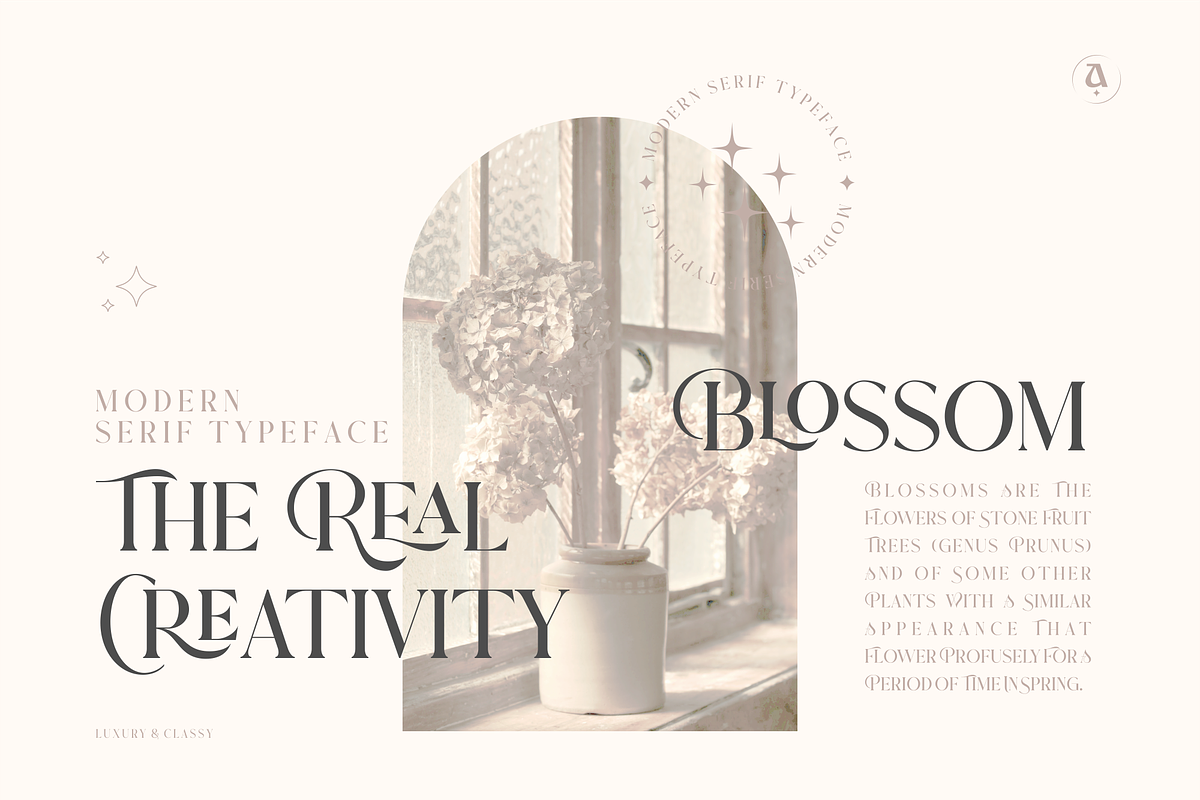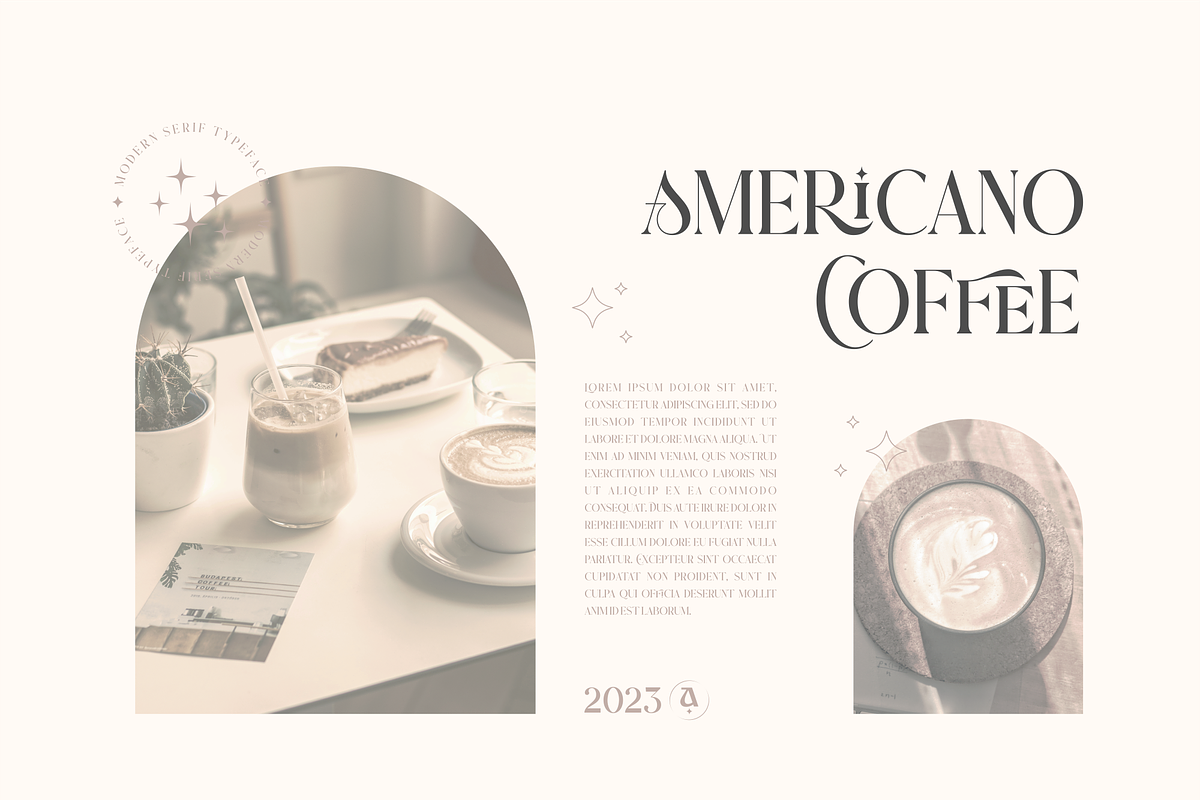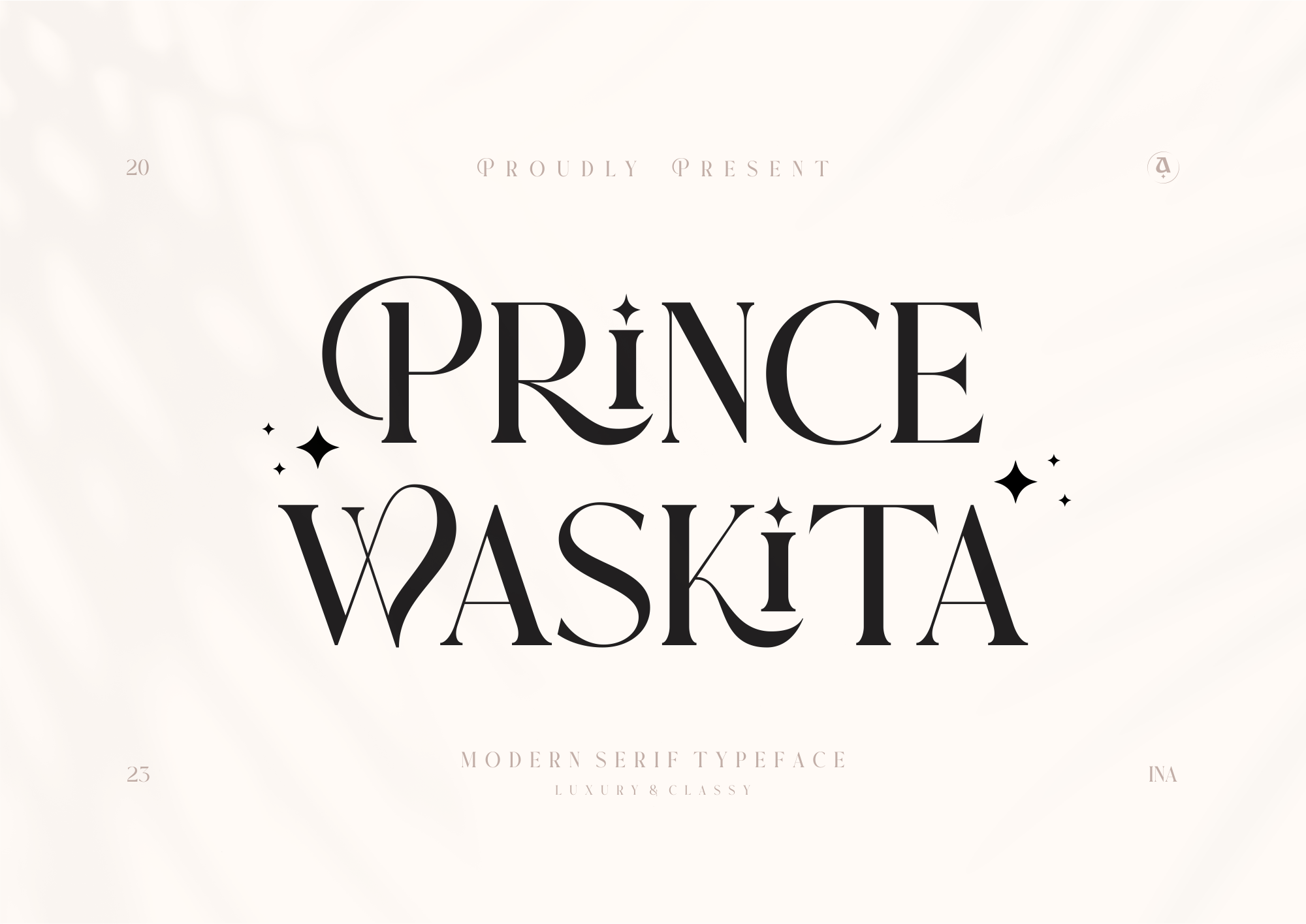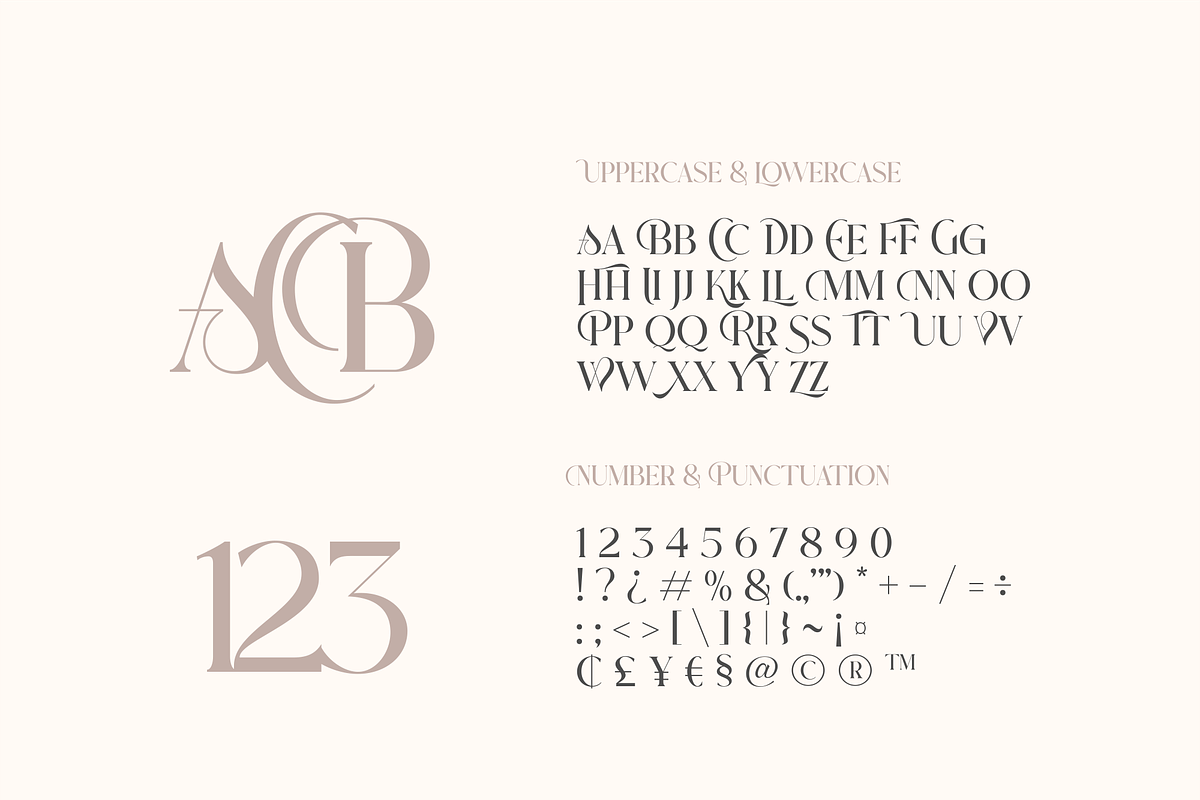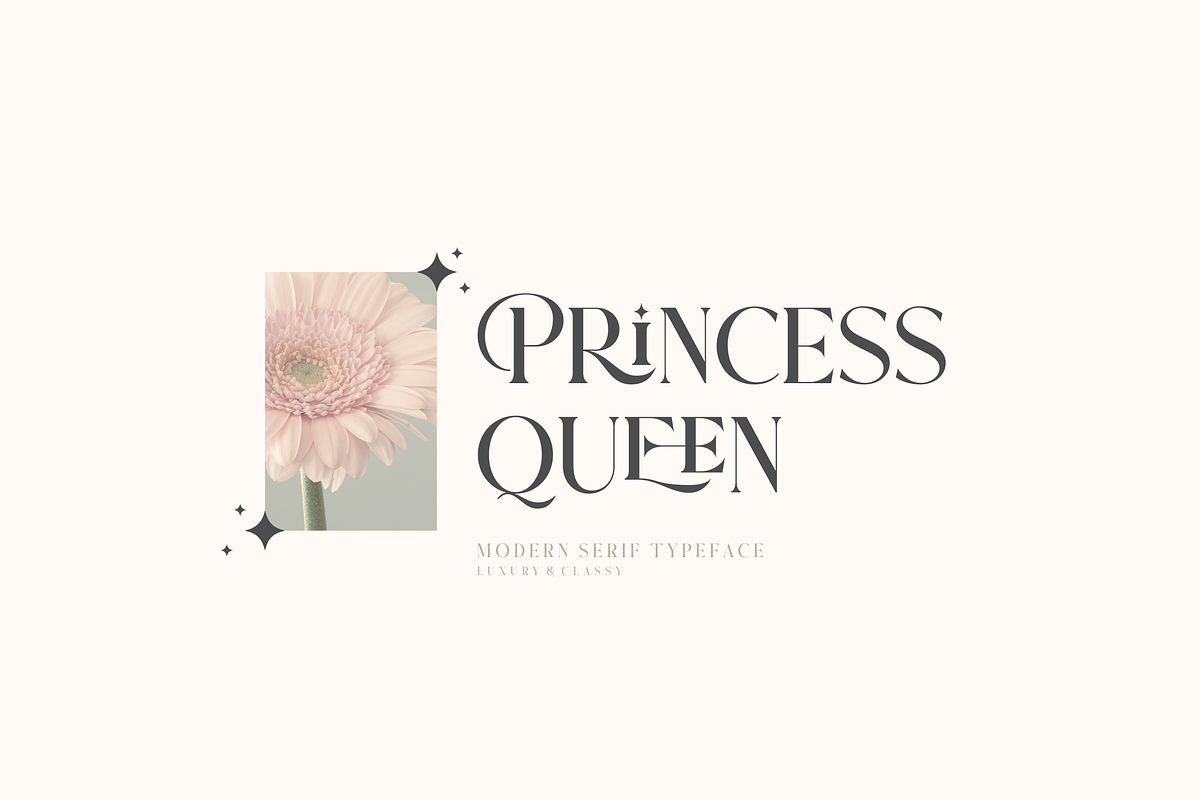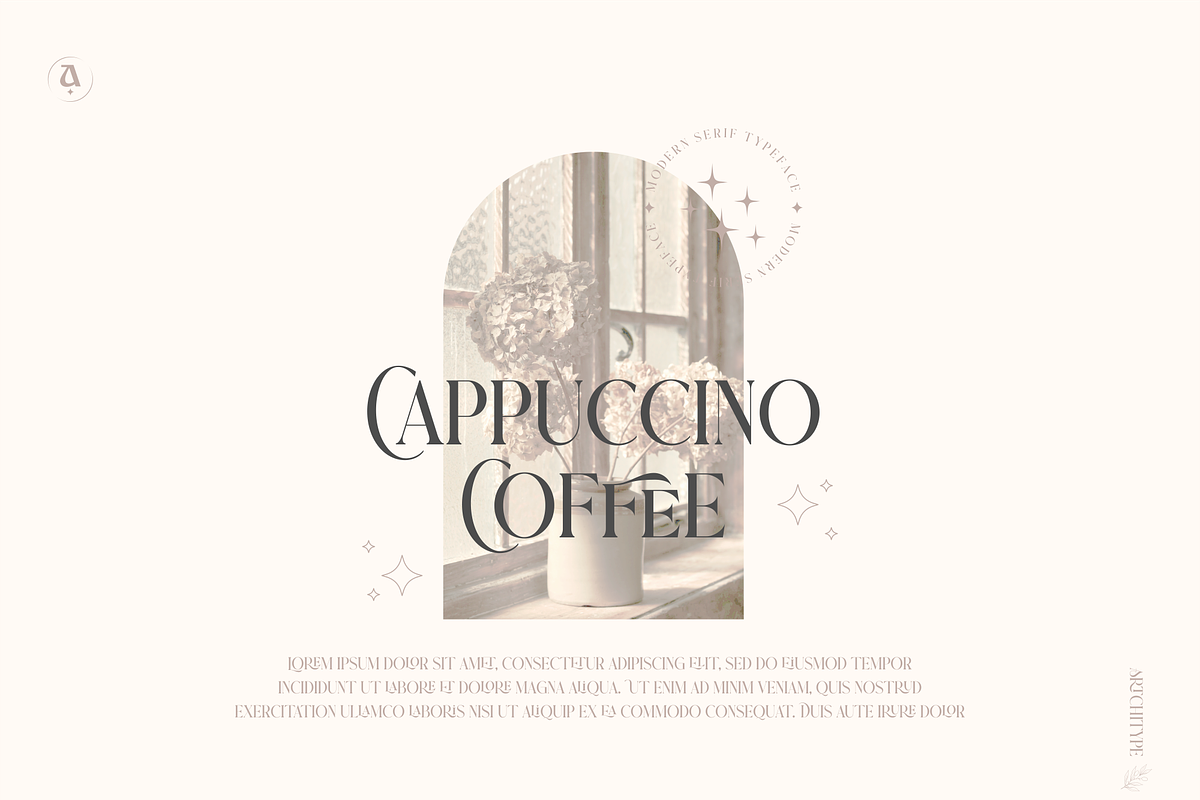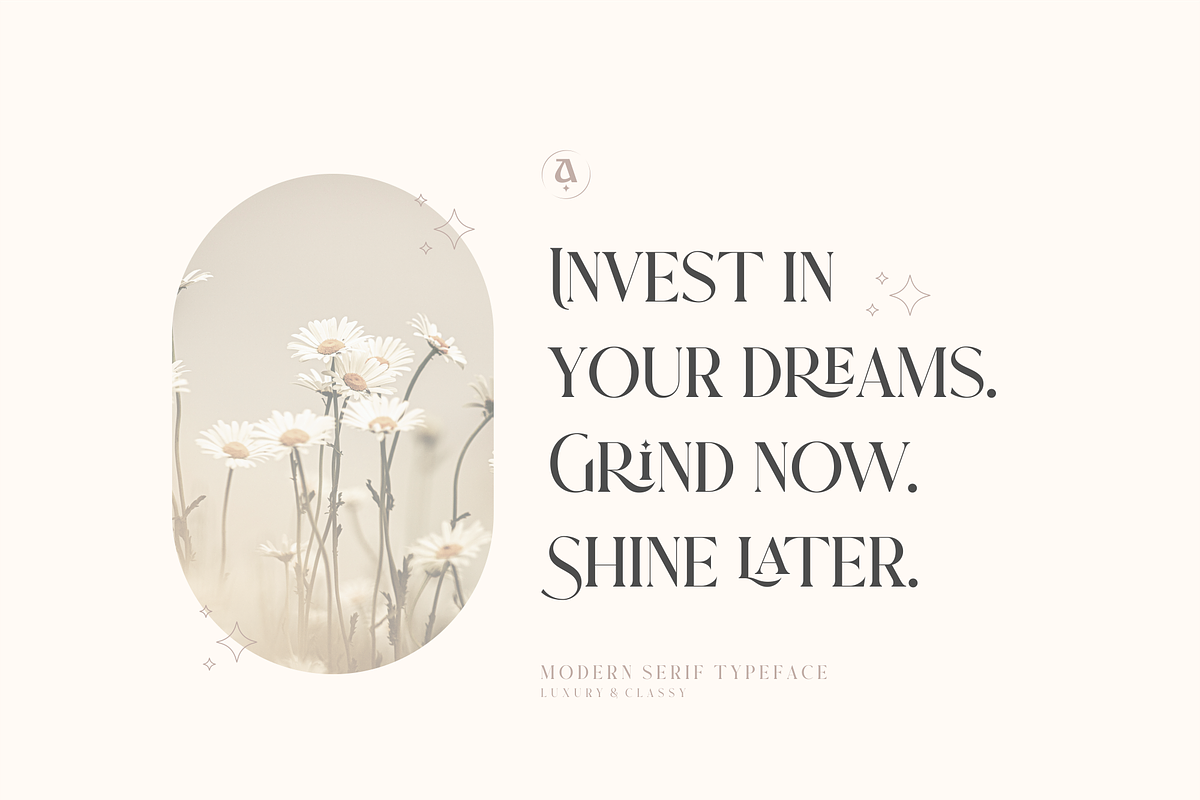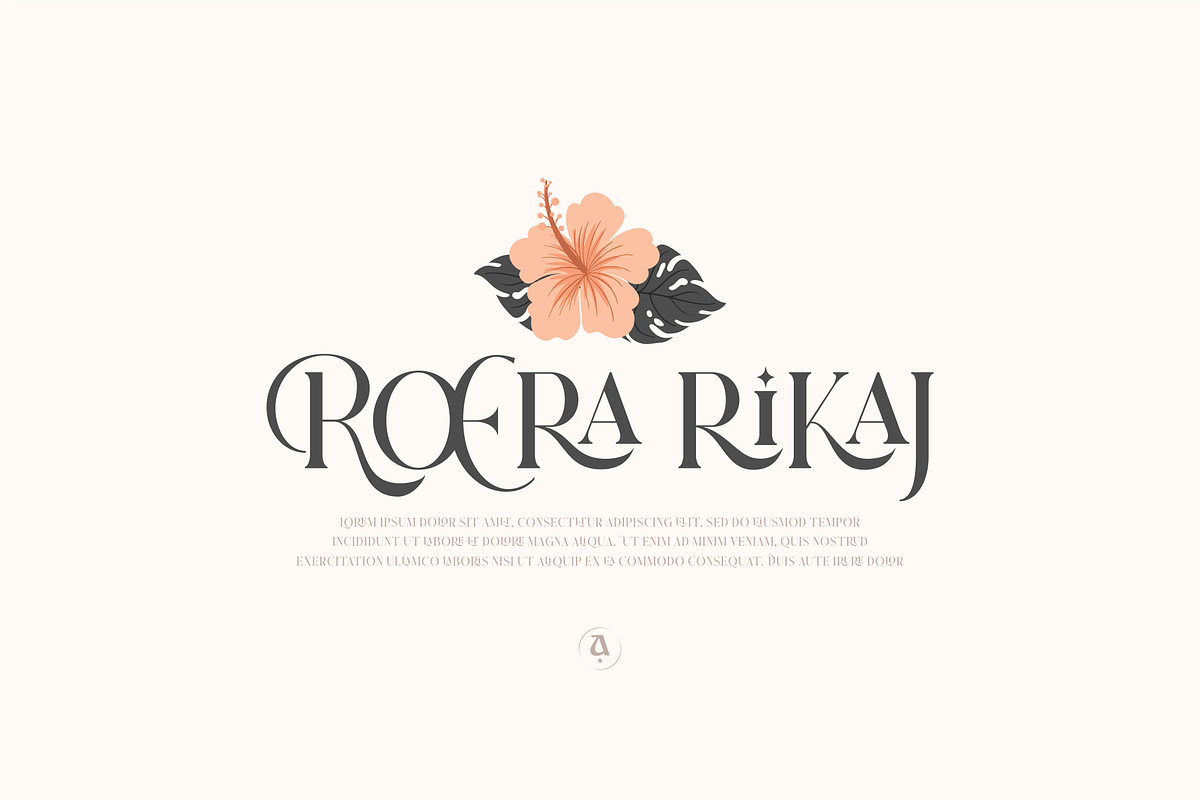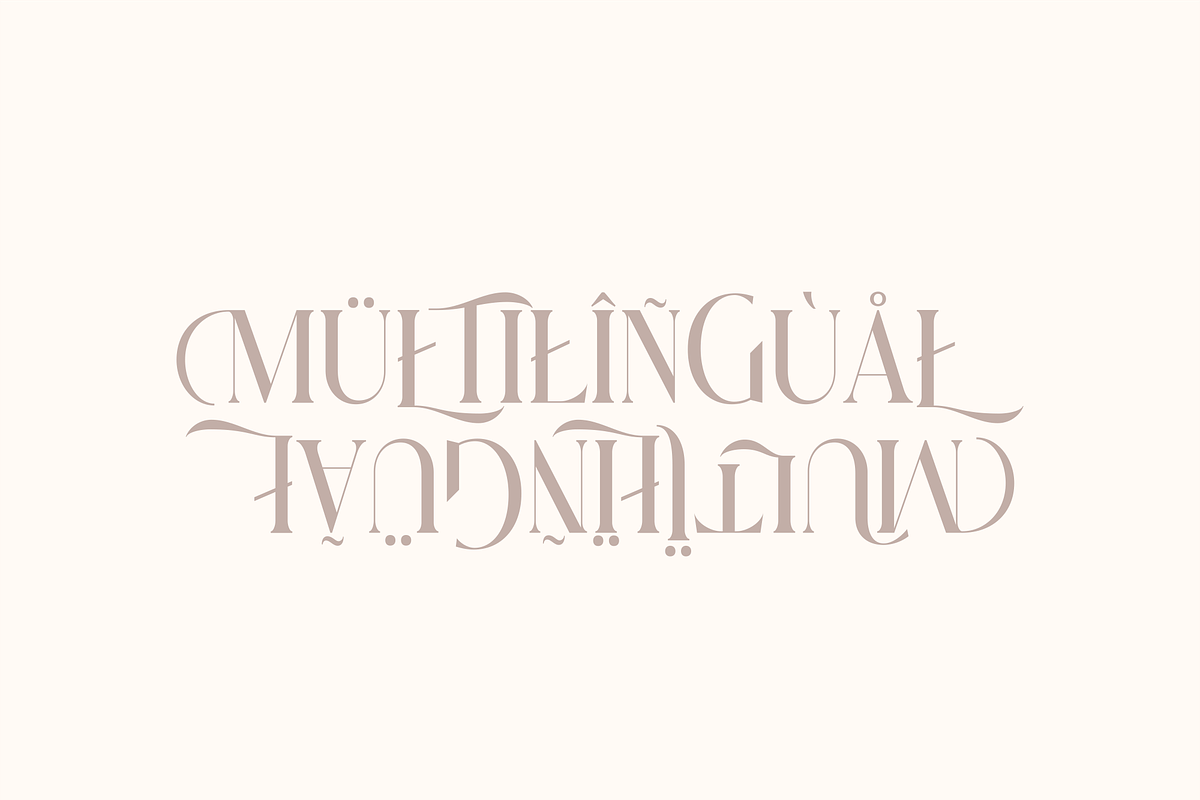
Prince Waskita - Serif Typeface
Prince Waskita is classy display serif font with 280+ characters. Includes uppercase, lowercase characters, multilingual, alternates and most common other characters.
Prince Waskita is perfect for logos, social media posts, product packaging, product designs, and other projects.